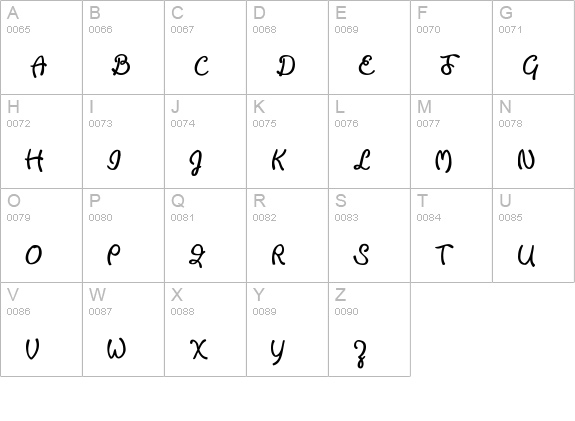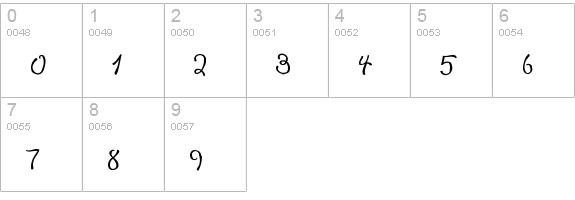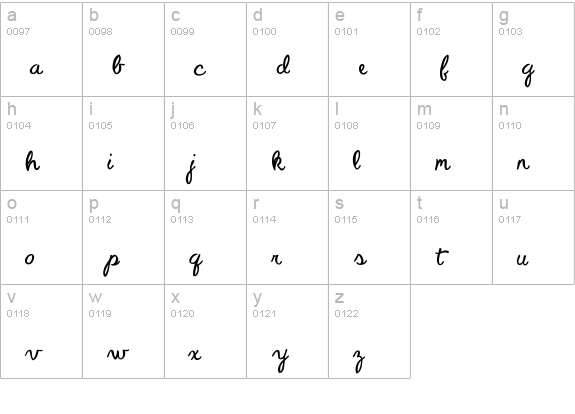
Peterbuilt Font Details
Introducing the remarkable Peterbuilt font, a versatile typeface that exudes strength, elegance, and sophistication. With its clean lines and bold yet refined letterforms, Peterbuilt is sure to make a lasting impression on any design project. This typeface is perfect for various purposes, from branding and advertising to editorial design and web content. Its timeless appeal and legibility make it an excellent choice for both print and digital media. What sets Peterbuilt font apart is not only its impeccable design but also its accessibility. This font is available for free download at FontsMarket.com, allowing designers, creatives, and typography enthusiasts to effortlessly incorporate it into their projects without breaking the bank. Whether you're working on a logo, packaging design, or website layout, Peterbuilt font offers a multitude of possibilities. Its extensive character set includes uppercase and lowercase letters, numerals, punctuation marks, and special characters, ensuring versatility and ease of use. The carefully crafted curves and balanced proportions of Peterbuilt font create a harmonious visual experience, ensuring that your message is conveyed with utmost clarity and impact. Its versatility extends to various design styles, effortlessly adapting to both modern and classic aesthetics. With Peterbuilt font, you have the freedom to express your creativity and bring your vision to life. Its timeless appeal, combined with its freely available download at FontsMarket.com, makes it an invaluable asset for any designer's toolkit. Embrace the power of Peterbuilt font and elevate your designs to new heights. Download it today and experience the seamless integration of style, elegance, and accessibility in your typographic endeavors.